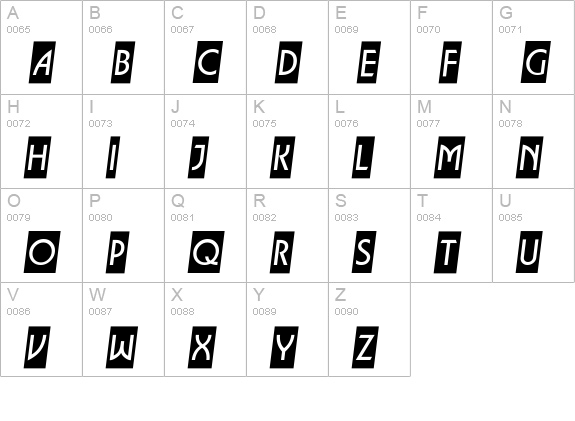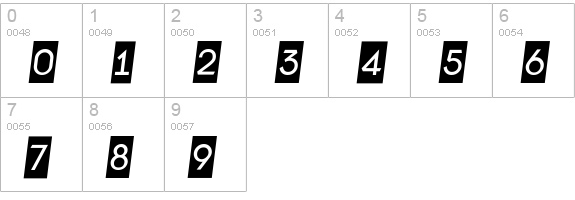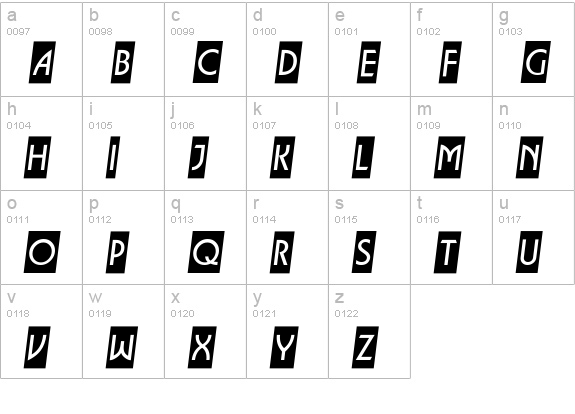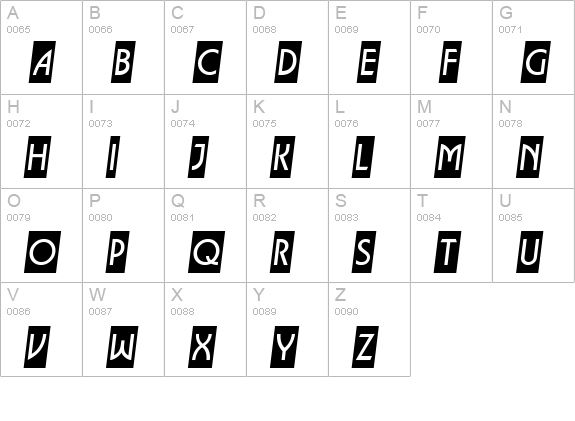
a_LancetCmSlt Font Details
Introducing LancetCmSlt, a sleek and elegant font that exudes sophistication and style. With its slender and refined letterforms, LancetCmSlt is perfect for adding a touch of class to any design project. Whether you're creating invitations, logos, or editorial layouts, this font will elevate your work to new heights. The best part? LancetCmSlt is completely free to download at FontsMarket.com. That's right, you can access this premium font at no cost, making it an incredible value for designers looking to enhance their projects without breaking the bank. Don't miss out on the opportunity to add LancetCmSlt to your font collection today and take your designs to the next level.